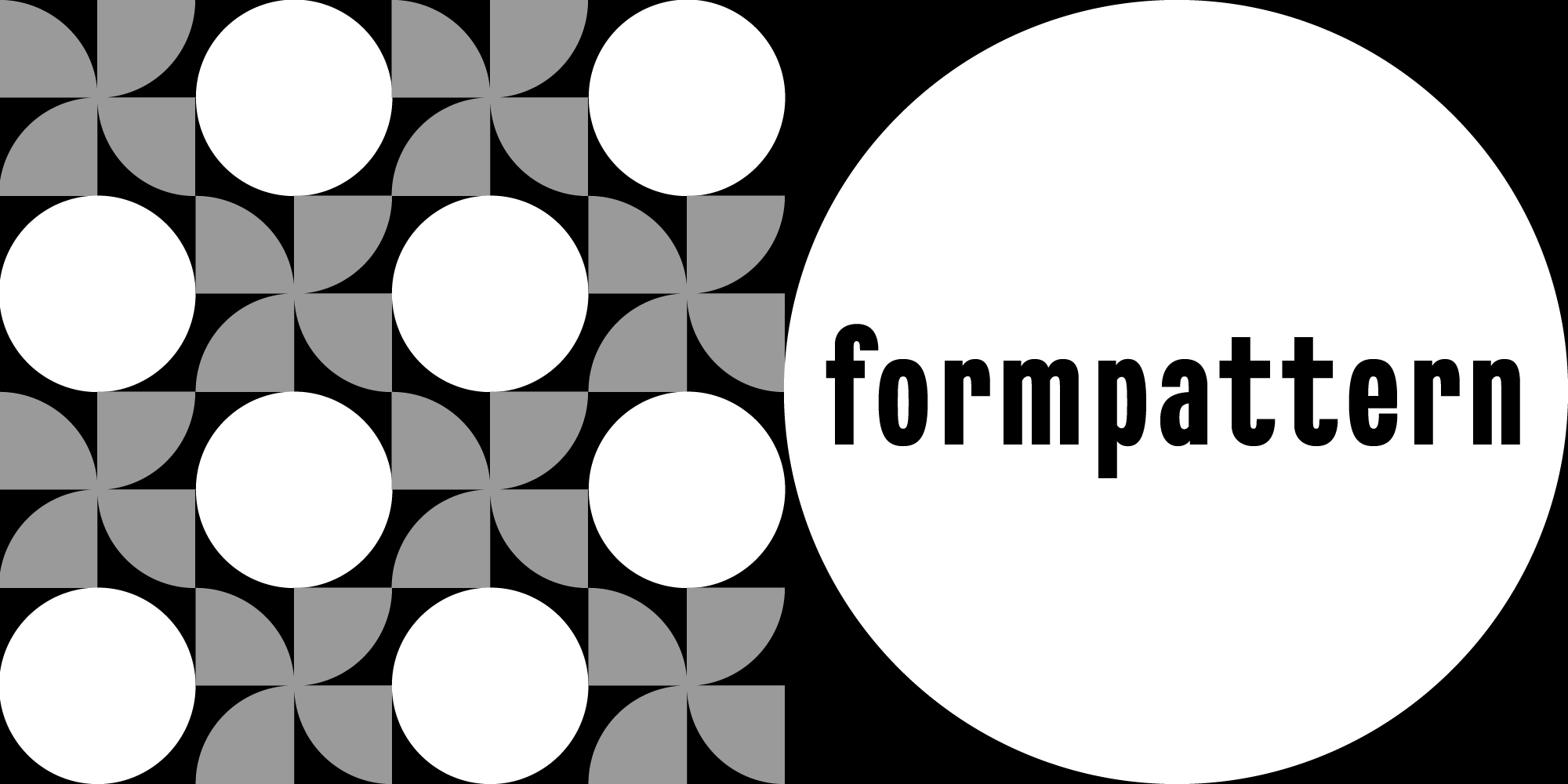
FormPattern Font Free Download is a decorative and modular typeface inspired by geometric patterns and contemporary design. Its unique and artistic letterforms make it an excellent choice for branding, posters, creative packaging, digital media, and editorial layouts that require a bold, experimental visual style.
The font’s structured and patterned appearance ensures a strong visual impact, making it ideal for headline use and display purposes. FormPattern brings creativity, innovation, and a modern edge to any project, offering a distinctive aesthetic that captures attention across both print and digital platforms.
FormPattern is a standout choice for designers looking to add a unique, geometric flair and bold character to their creative projects.